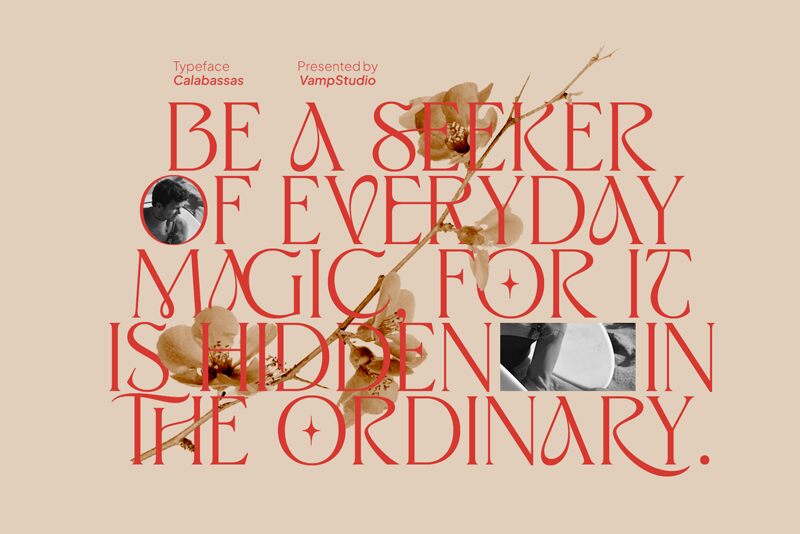
Calabassas font by VampStudio is a fancy free font that showcases a perfect blend between drama and sophistication. This sophisticated typography option carries an elegant, artsy vibe suitable for decorative purposes. Its impressive execution consists of thoughtful details that when combined create a strong and captivating presence. The theatrical identity of this font comes from its ornate serifs and graceful curves that introduce a modern twist to its classic design roots.
Calabassas is the perfect font for large headings and other short writing projects like wedding invitations, and greeting cards. It can also be used in movie posters, book covers, logos, and branding projects to add a spectacular touch. Fashion, photography, and makeup businesses can also benefit from the stylish appeal of this font.